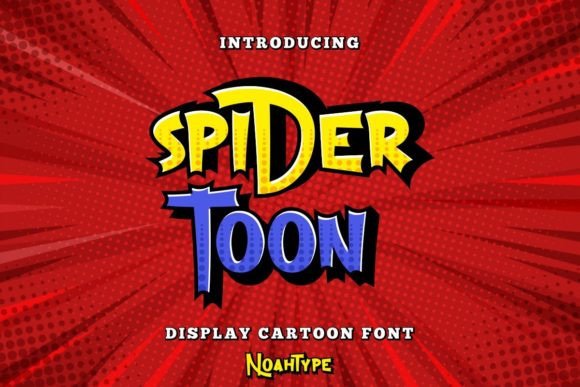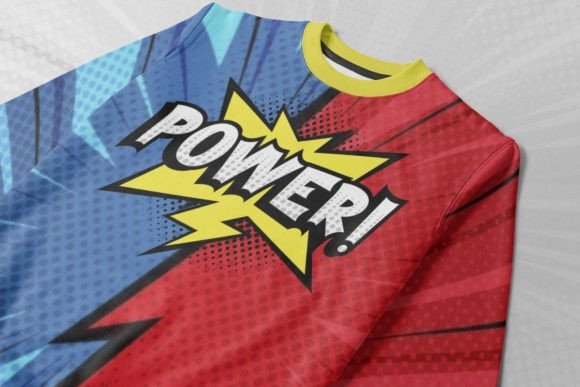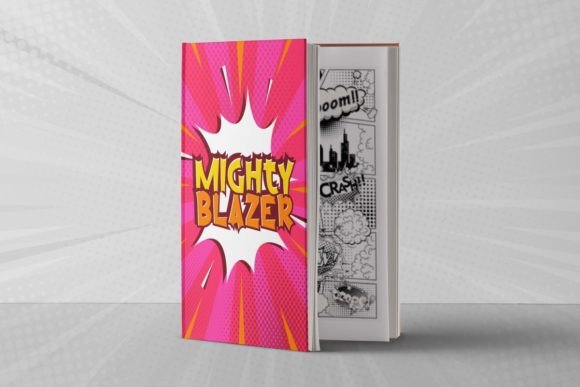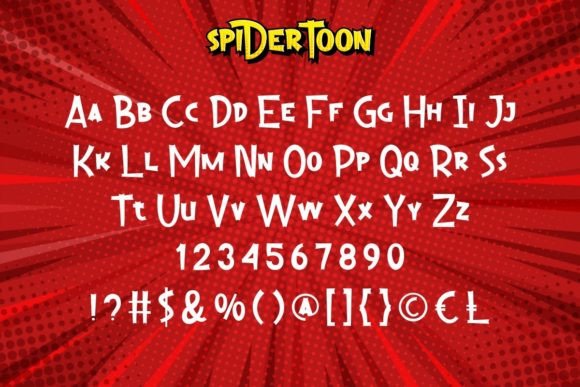
Spider Toon Font: A Bold & Playful Display Font for Comic Design
About the Spider Toon Font
Unleash your creativity with Spider Toon Font, a versatile font perfect for a wide range of applications. Spider Toon Font is a playful display font with a cartoon style. The comic-inspired font characters bring an energic vibe that can match lots of design ideas such as branding, comic design, custom mug, kid stuff, poster, product packaging, quote, and more. This font is PUA encoded which means you can access all glyphs and swashes effortlessly!
Spider Toon Font Usage Examples
Spider Toon Font Example